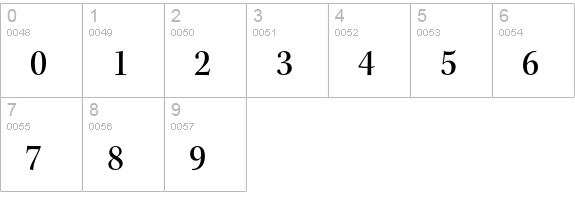
Kepler Std Medium Semicondensed Subhead Font Details
Kepler Std Medium Semicondensed Subhead is a balanced, medium-weight variant in the Kepler typeface family \xE2\x80\x94 well suited to sub-headlines, navigation, and balanced editorial work.
Kepler Std Medium Semicondensed Subhead font is a versatile and modern typeface that exudes professionalism and sophistication. Designed with precision and attention to detail, this font is perfect for subheadings and headings of any project or design. With its medium weight and semicondensed proportions, Kepler Std Medium Semicondensed Subhead font strikes the right balance between readability and impact. Its clean and crisp lines make it highly legible even at smaller sizes, while its condensed nature allows for more text to fit in limited spaces. The elegant curves and subtle serif details of Kepler Std Medium Semicondensed Subhead font add a touch of sophistication and refinement to any design. Whether it's used in print or digital media, this font effortlessly captures attention and conveys a sense of professionalism. One of the best features of Kepler Std Medium Semicondensed Subhead font is that it is freely available to download at FontsMarket.com. This means that designers and creatives can easily access and use this font in their projects without any restrictions. The freedom to use this font allows for endless possibilities and creativity in design. Overall, Kepler Std Medium Semicondensed Subhead font is a reliable and versatile choice for any project that requires a stylish and modern typeface. Its combination of readability, sophistication, and the fact that it is freely available makes it a must-have in any designer's toolkit.